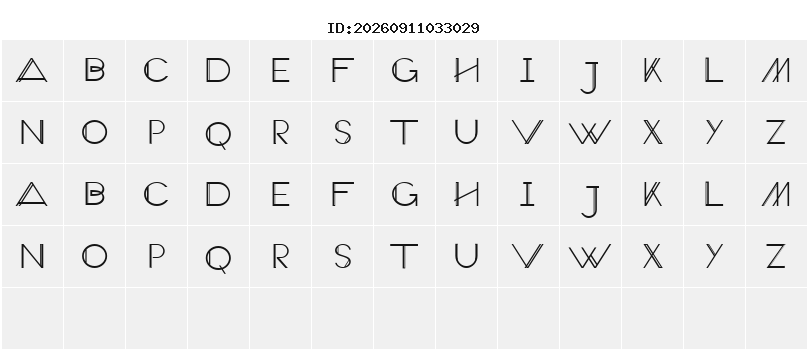
Veron Extra Preview
• Font Name: Veron Extra
• Designer: Paulo R
About Veron Extra.ttf
Veron Extra.ttf is a modern, elegant sans-serif font designed for ultimate readability and visual harmony. Perfect for branding, headlines, web design, and print materials.